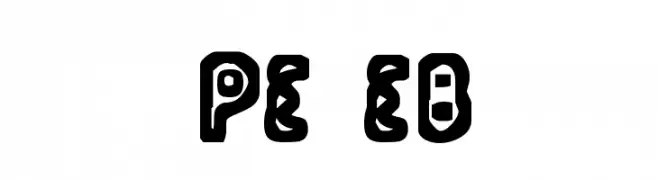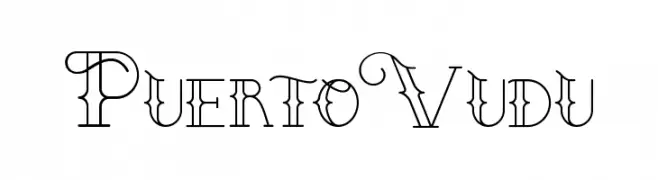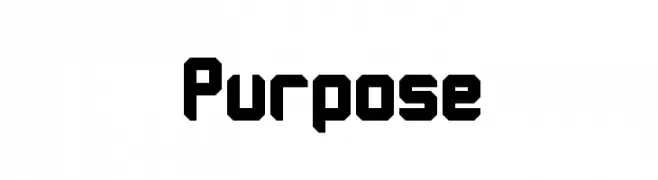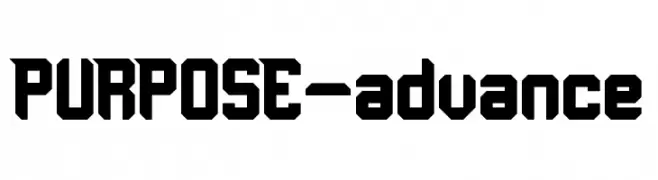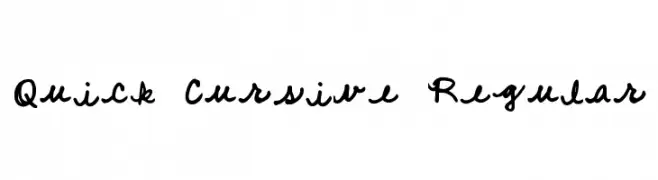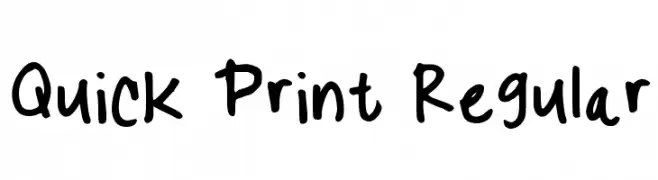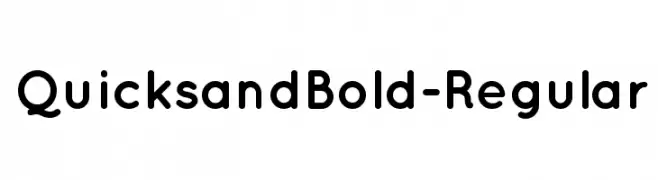
A bold, playful font with thick, rounded edges and a whimsical style.
A lively, handwritten font with irregular strokes and a playful style.
A pixelated, retro-style font inspired by early digital displays.
A bold, cursive font with a playful, handwritten style.
An ornate and decorative font with vintage flair and elegant flourishes.
A bold, geometric font with a modern, futuristic style.
A bold, geometric font with a futuristic and industrial style.
A lively cursive font with smooth, flowing strokes and a handwritten aesthetic.
A playful, bold handwritten font with rounded, consistent strokes.
A modern, rounded sans-serif font with a clean and approachable design.